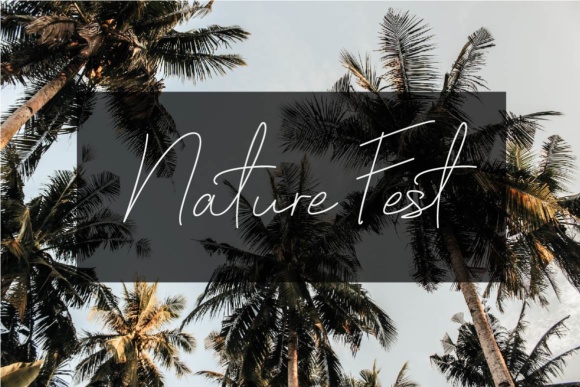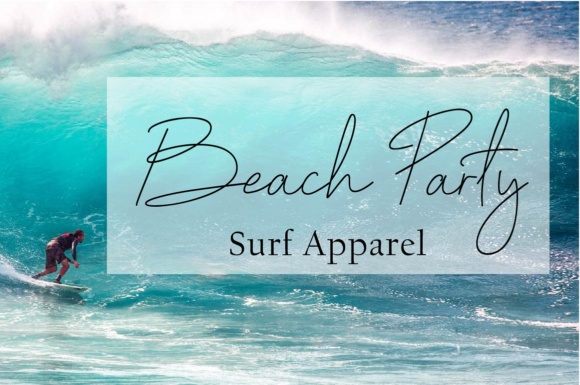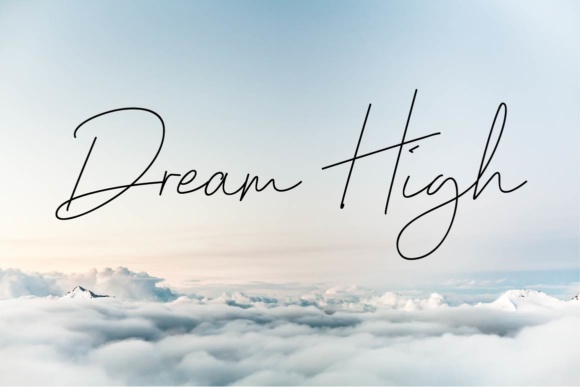
Introduction to Koala Script Font
Remember the thrill of working on a creative project, pouring your heart and soul into it, only to find the perfect finishing touch – a beautiful, elegant font that elevates the entire design? For designers, this moment is all too familiar. It’s the culmination of hours of searching, experimenting, and refining, until that one perfect element falls into place. And that’s exactly what the Koala Script Font offers – a chance to take your designs to the next level.
This stunning monoline handwritten font is a treasure trove of creative possibilities, suitable for a wide range of design projects, from blogs and headers to branding and book cover titles. With its high quality and unique aesthetic, the Koala Script Font is an invaluable resource for designers seeking to add a touch of sophistication and elegance to their work.
Key Features of Koala Script Font
- High-quality, elegant script font suitable for creative projects and design resources.
- Designed to be versatile, making it suitable for a wide range of applications, from wedding invitations to branding materials.
Honest Review: Koala Script Font
As a designer, I’m always on the lookout for unique and high-quality design resources. The Koala Script Font is one such find that has caught my attention. With its free download option, I was excited to incorporate it into my next creative project.
What works well about the Koala Script Font is its elegant and whimsical feel, making it perfect for projects that require a touch of sophistication. The font is highly customizable and can be easily paired with other design elements to create a cohesive look.
- ✨ Elegant and whimsical feel
- ✨ Highly customizable
However, I do have to mention that the Koala Script Font lacks transparency options, which can be a limitation for designers who prefer to work with transparent backgrounds.
- ⚠️ Limited transparency options
Overall, the Koala Script Font is a great addition to any designer’s toolkit. Its high-quality design and free download option make it an excellent choice for creative projects. While it may have some limitations, it’s definitely worth considering for your next design endeavor.
Tips for Getting the Most Out of Koala Script Font
For the best results, use Koala Script Font on a high-quality design resource. Make sure to adjust the font size and style to fit your creative project. You can also experiment with different colors and backgrounds, such as a transparent background, to create a unique look.
Koala Script Font is ideal for creative projects that require a unique and elegant touch. It’s perfect for wedding invitations, baby showers, and other special occasions. You can also use it for branding and marketing materials, such as logos and business cards.